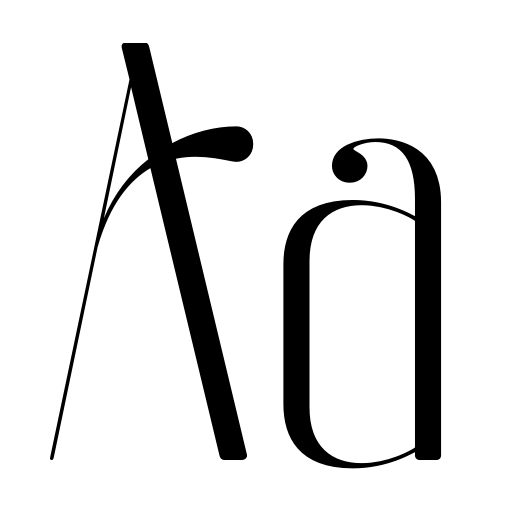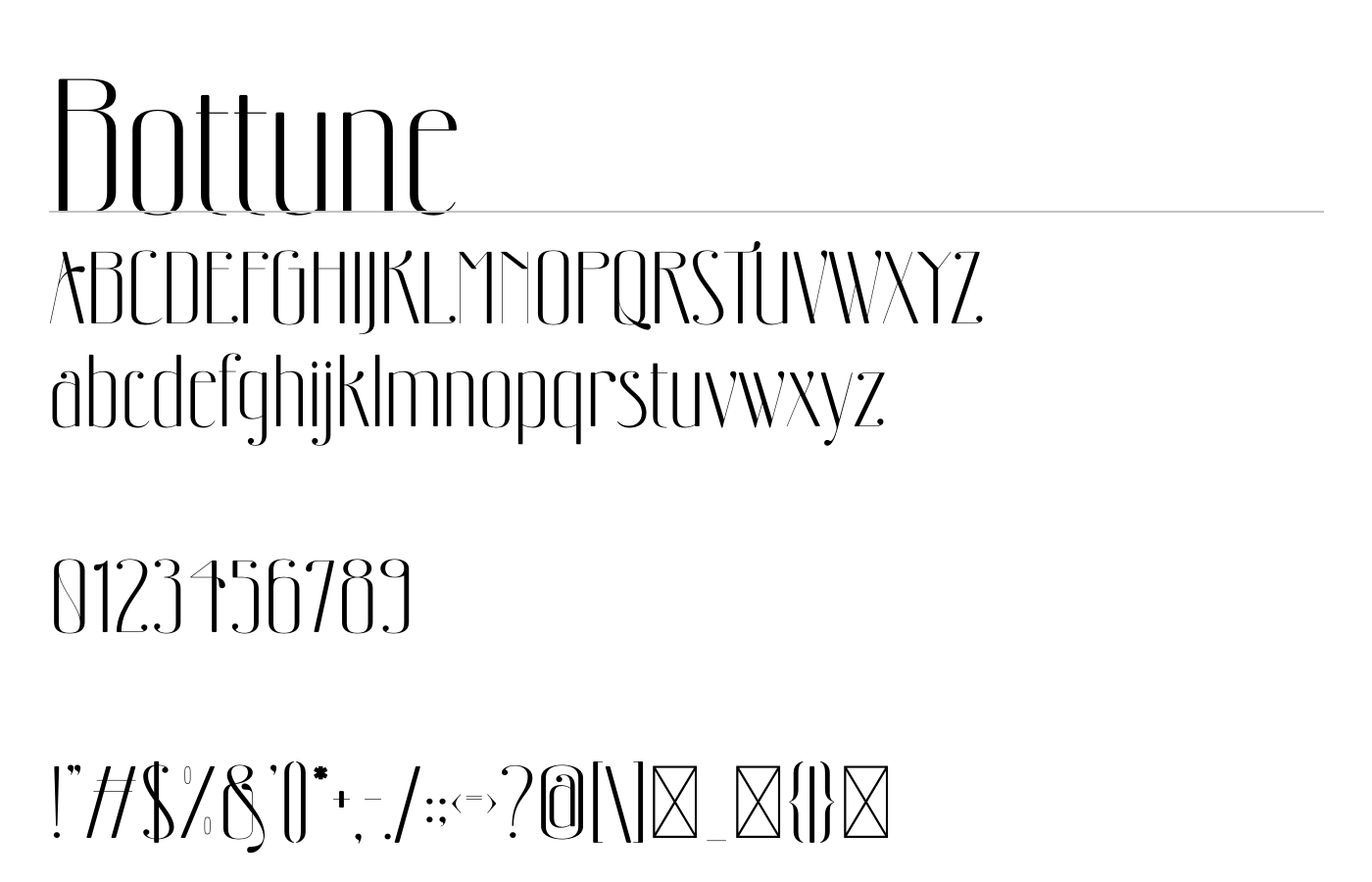
Bottune is an elegant and modern serif font characterized by its ultra-thin strokes and tall, narrow letterforms that create a refined and sophisticated look. Its high contrast between thick and thin lines, along with delicate, almost calligraphic details, makes it ideal for luxury branding, fashion magazines, and stylish headlines where a sleek, upscale feel is desired. This font works best in large sizes, lending a sense of exclusivity and grace to any design.
Bottune Font